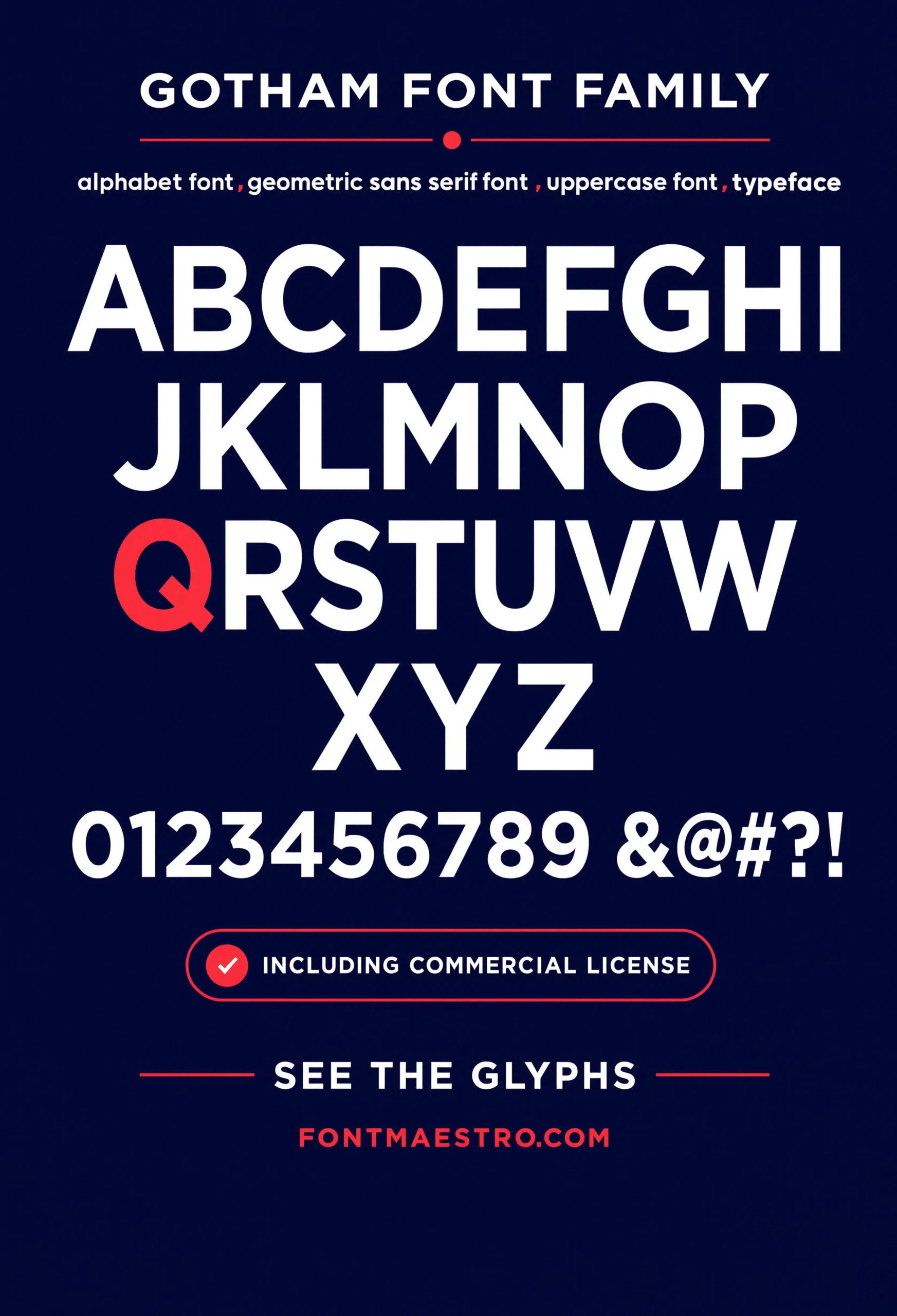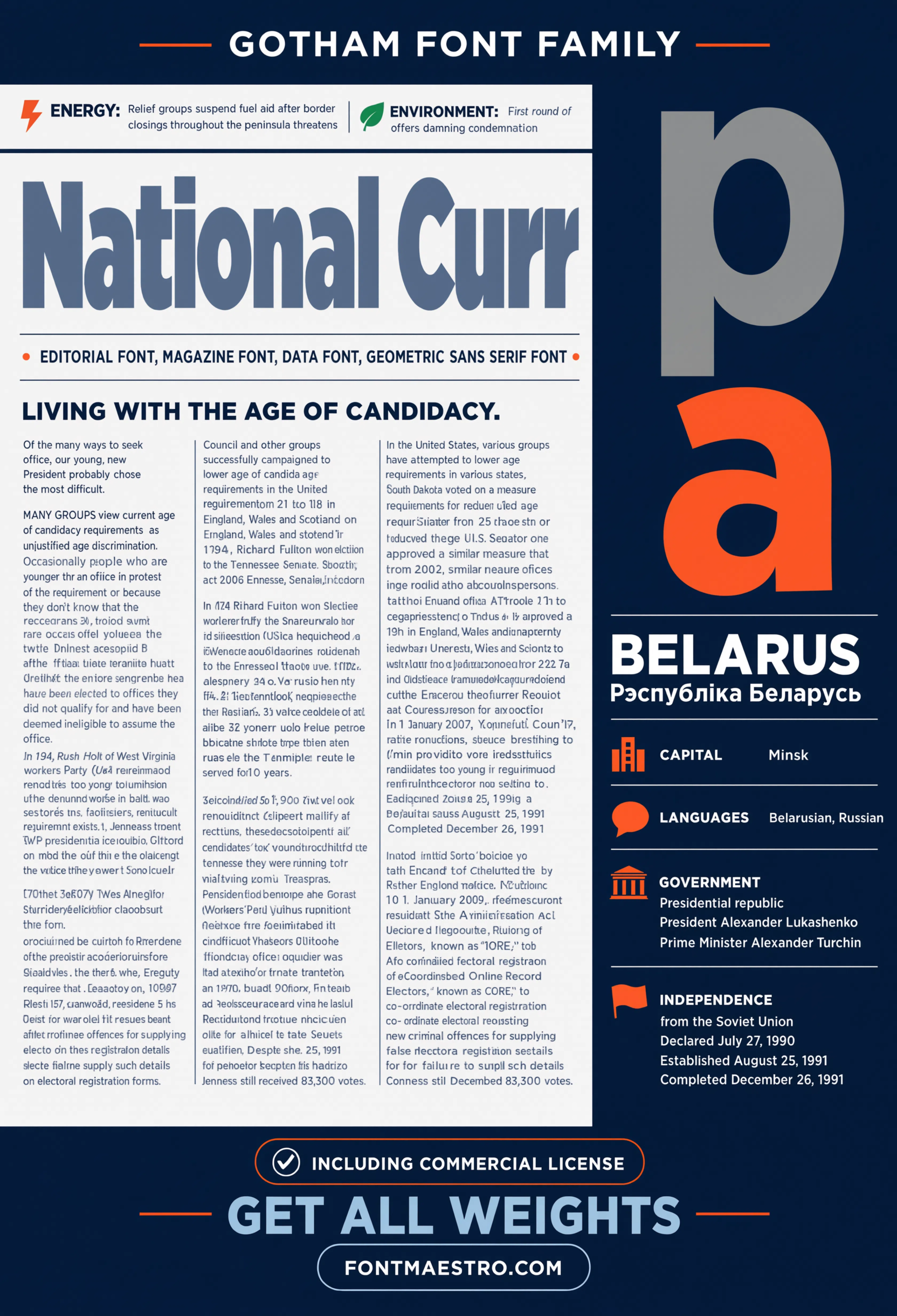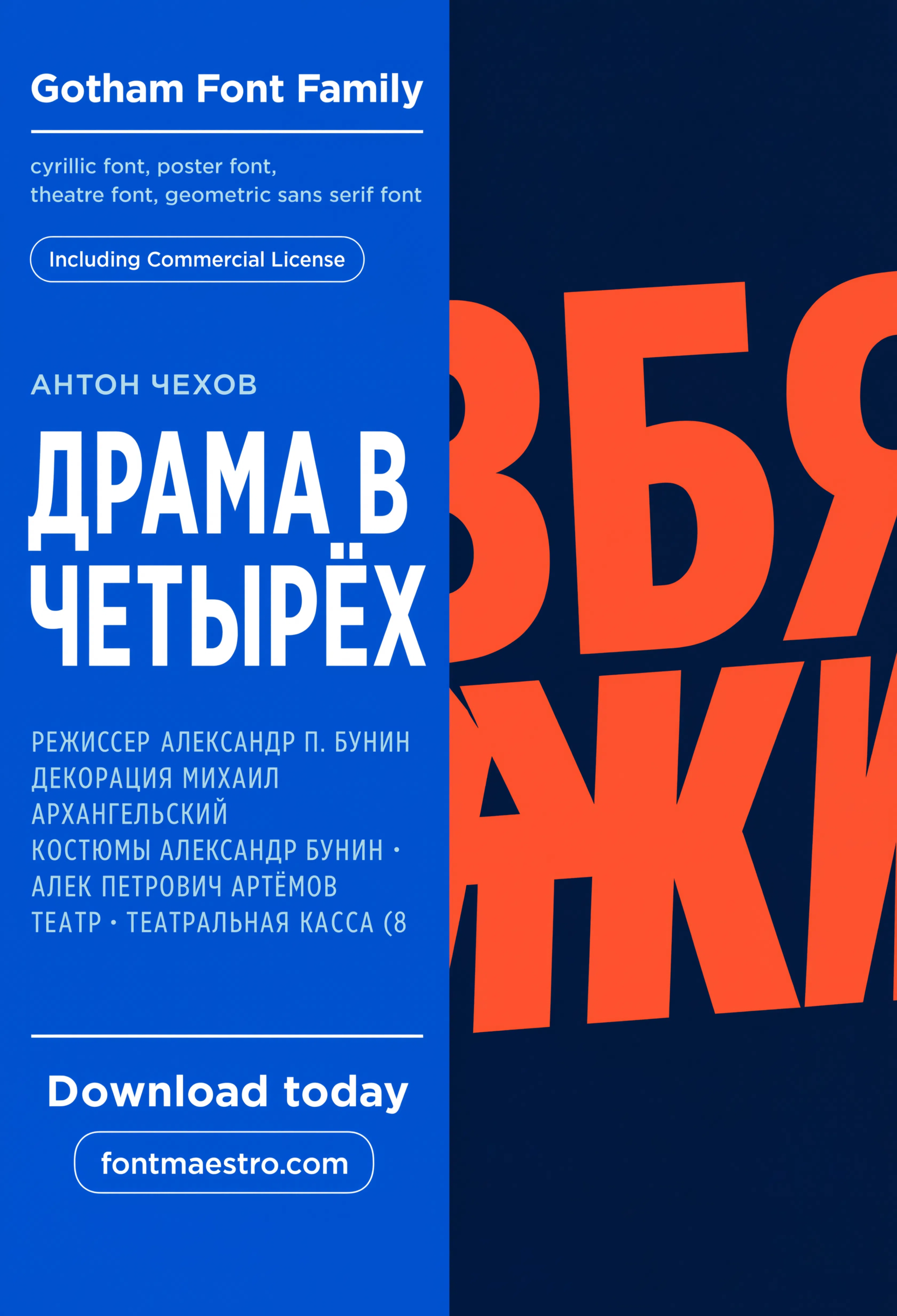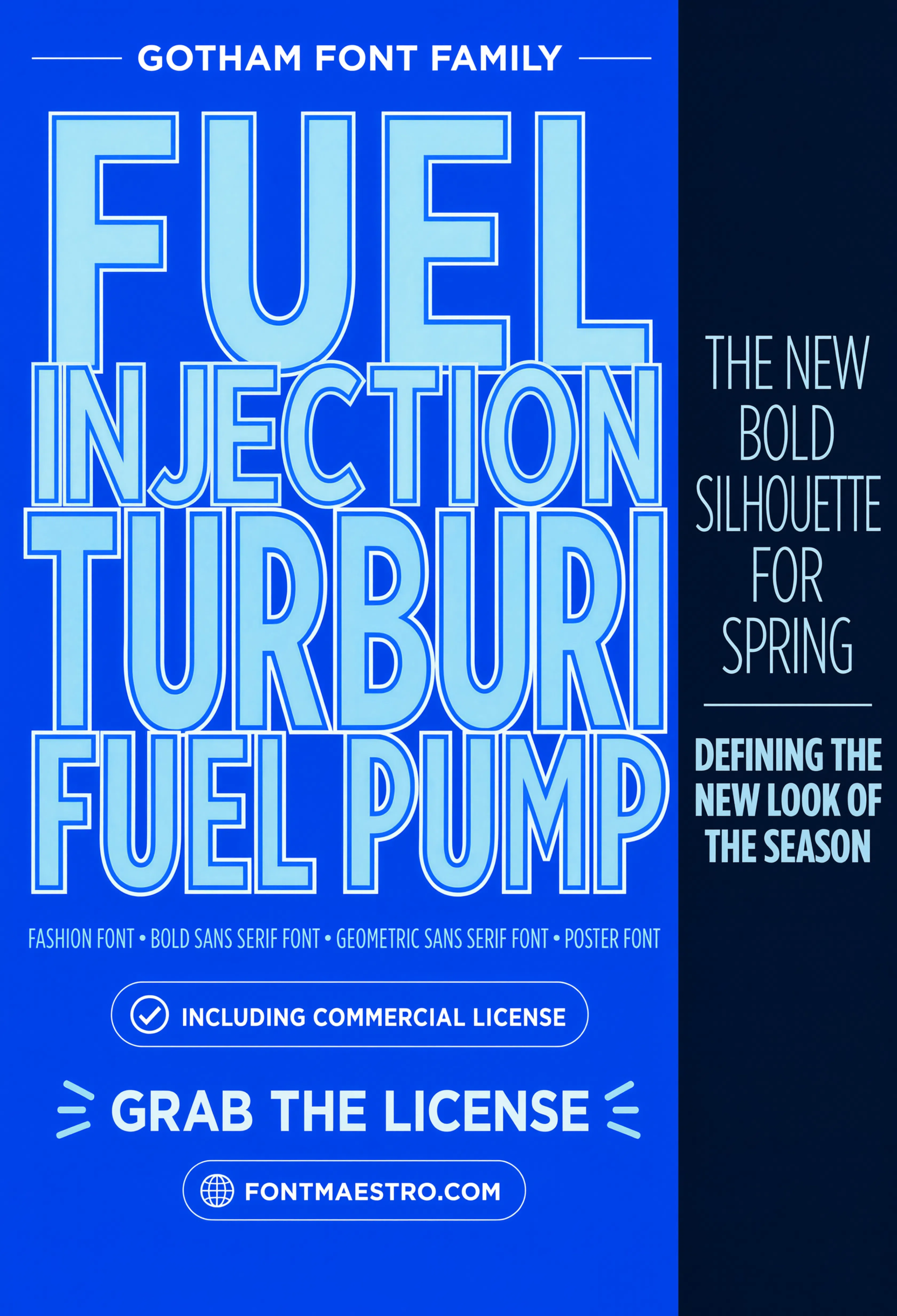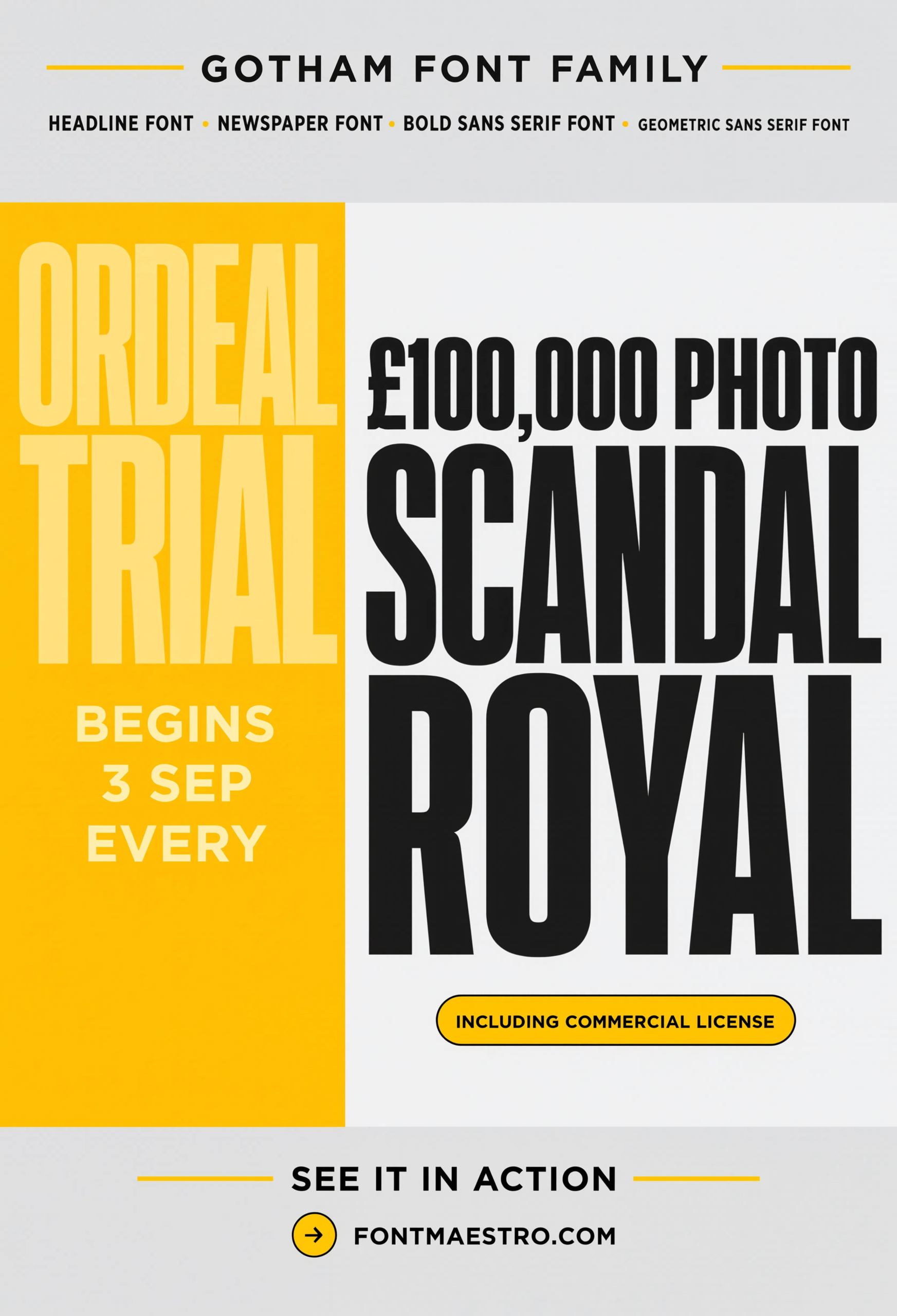
Where do good font logo ideas actually come from? Not a mood board of fifty fonts — from constraint. Gotham became the reference point for modern American branding because it started as a single sign painting job: hand-lettered NYC storefronts, digitized into a typeface built to work at every size a sign needs to work at.
That’s the real question behind “font logo ideas”: not which font looks good, but which one survives the widest range of contexts your brand will actually appear in.
Quick answer: Strong font logo ideas start from context, not style. Pick a typeface family with enough weights to cover your full brand system (headline, body, signage), verified glyph coverage for every market you’ll launch in, and a geometric or grotesque structure that reads clearly at both favicon and billboard scale — Gotham is a proven reference point for exactly this brief.
What Makes a Font Logo Idea Actually Work in Practice?
A font logo idea that only works in a mockup isn’t a finished idea — it’s a draft. The real test is whether the wordmark holds up across every surface a brand touches: a magazine spread, a transit sign, an app icon, a record sleeve.
Gotham’s alphabet specimen below shows the structural logic that makes this possible — every letter shares the same geometric bones, so the wordmark doesn’t wobble in quality as it moves from headline to caption size.
Which Font Logo Idea Fits Your Brand Context?
- Editorial or publishing brand → look for a font family with a proven book or magazine layout use — check how it sets long-form text, not just a headline.
- Music, entertainment, or culture brand → an album cover or poster setting tells you more than a plain specimen sheet — see how the font holds personality at large display size.
- Retail or signage-heavy brand → prioritize a font tested in real wayfinding or transit signage, where legibility at distance and in motion is non-negotiable.
- Fashion or lifestyle brand → a layered or fashion-editorial setting shows how the font handles being paired with imagery, not just sitting alone on white.
How Do You Avoid a Generic Brand Font Idea?
Genericness usually comes from stopping at the wordmark and never testing the font anywhere else. A logo font idea becomes a real brand system once you’ve seen it in a book layout, a poster, and a piece of signage — three very different jobs for the same letterforms.
The book layout and branding mockup below show two of those contexts side by side.
What If Your Brand Needs Multilingual Font Logo Ideas?
Skip this check and you’re planning a rebrand before you’ve even launched in a second market. Confirm glyph coverage for every alphabet your brand might need — Cyrillic included — before the wordmark ships anywhere.
The Cyrillic poster and theatre settings below show Gotham holding its structure outside the Latin alphabet, which is the actual test.
Alphabet Specimen
Every letter shares the same geometric bones, so the wordmark doesn’t wobble in quality as it moves from headline to caption size.
Editorial Almanac Spread
A full editorial spread showing headline, subhead, and body copy together — the fastest way to judge a brand font idea as a complete system, not just a logo mark.
Cyrillic Poster Setting
A large display setting in Cyrillic — confirms the geometric structure holds outside the Latin alphabet before you commit to a global rollout.
Fashion Layered Typography
A layered fashion-editorial setting — shows how the font holds up paired with imagery instead of sitting alone on white, the real test for a fashion or lifestyle brand font idea.
Tabloid Headline
Newsstand-scale headline treatment — tests impact and legibility at a glance, one of the harshest real-world tests a display font faces.
Where Do Font Logo Ideas Get Tested Hardest?
Transit signage and tabloid headlines are two of the harshest tests a font ever faces — one demands legibility in motion, the other demands impact at newsstand size. If a font logo idea survives both, it’ll survive almost anything a brand throws at it.
Frequently Asked Questions
Where do good font logo ideas come from?
From context, not trend-watching — the strongest font logo ideas start with the full range of places a brand needs to appear, then work backward to a typeface family that covers all of them.
How many weights does a brand font system need?
Most brand systems need at least three: a bold weight for the logo mark, a regular weight for headlines, and a lighter weight for body copy. Gotham’s full weight ladder covers this range in one family.